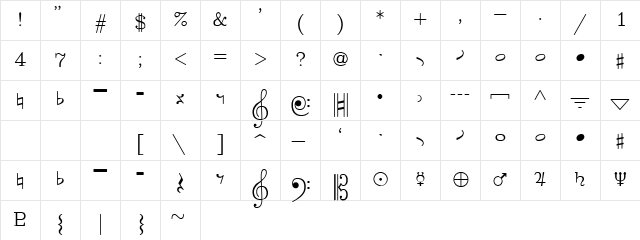
SWMusic Regular
Design Context for SWMusic
SWMusic is a composed and adaptable typeface that performs quietly and consistently across a wide range of design contexts.